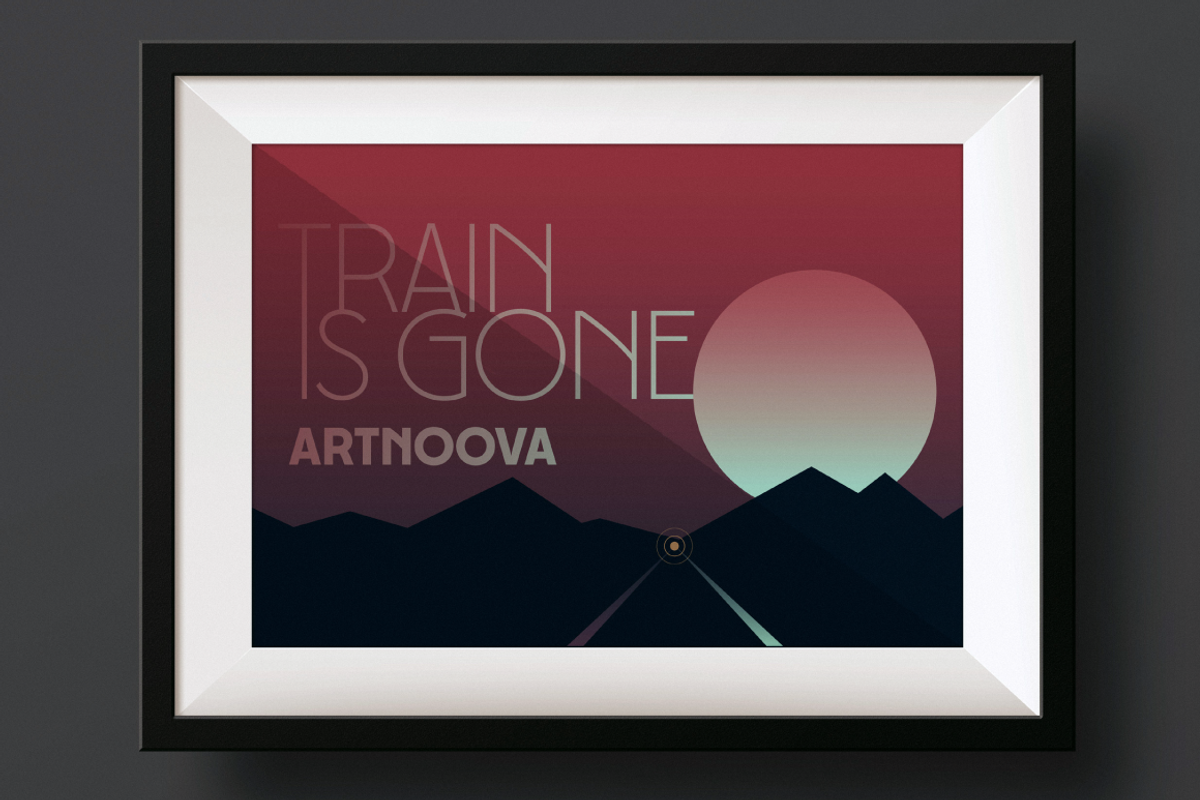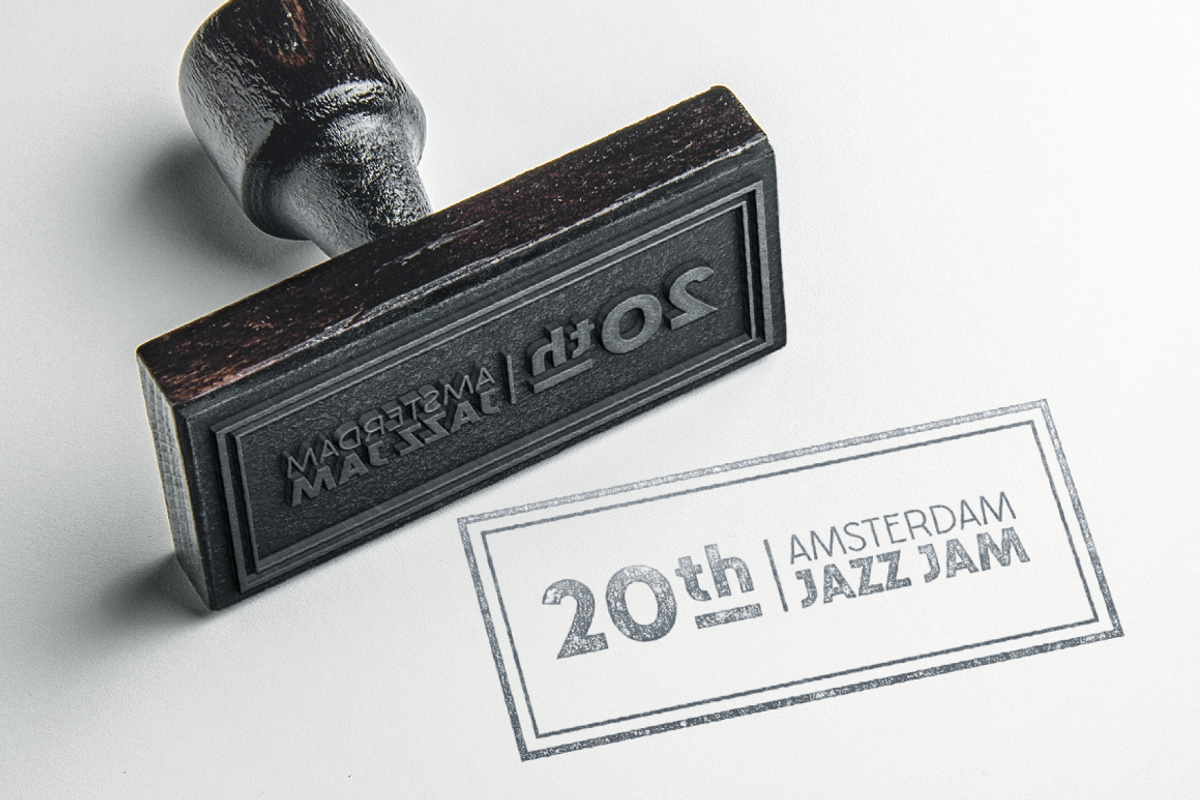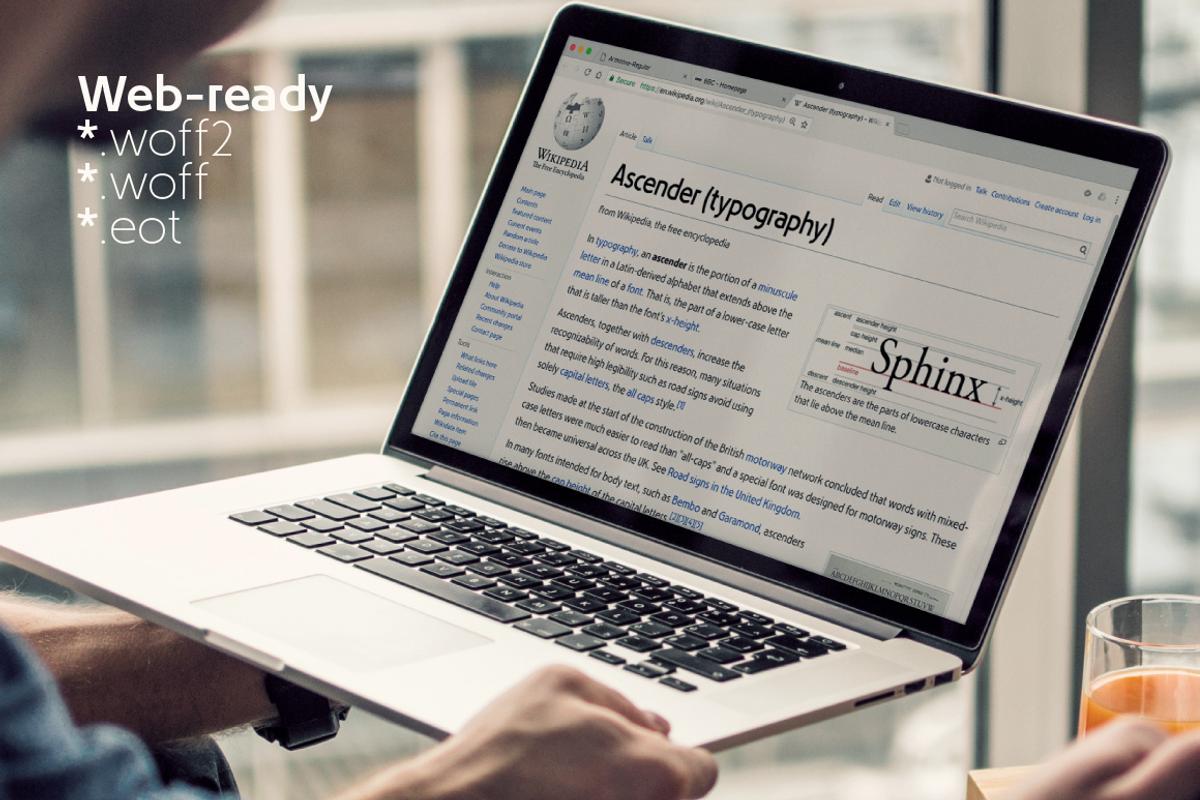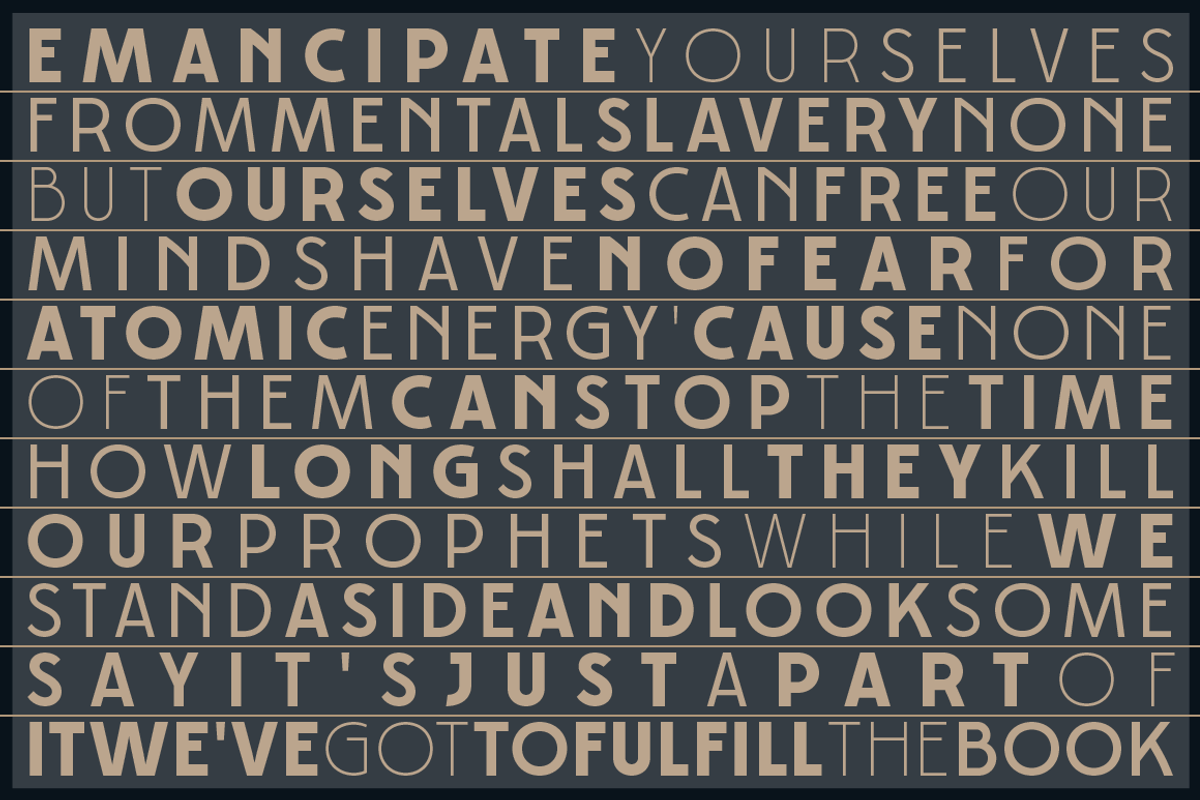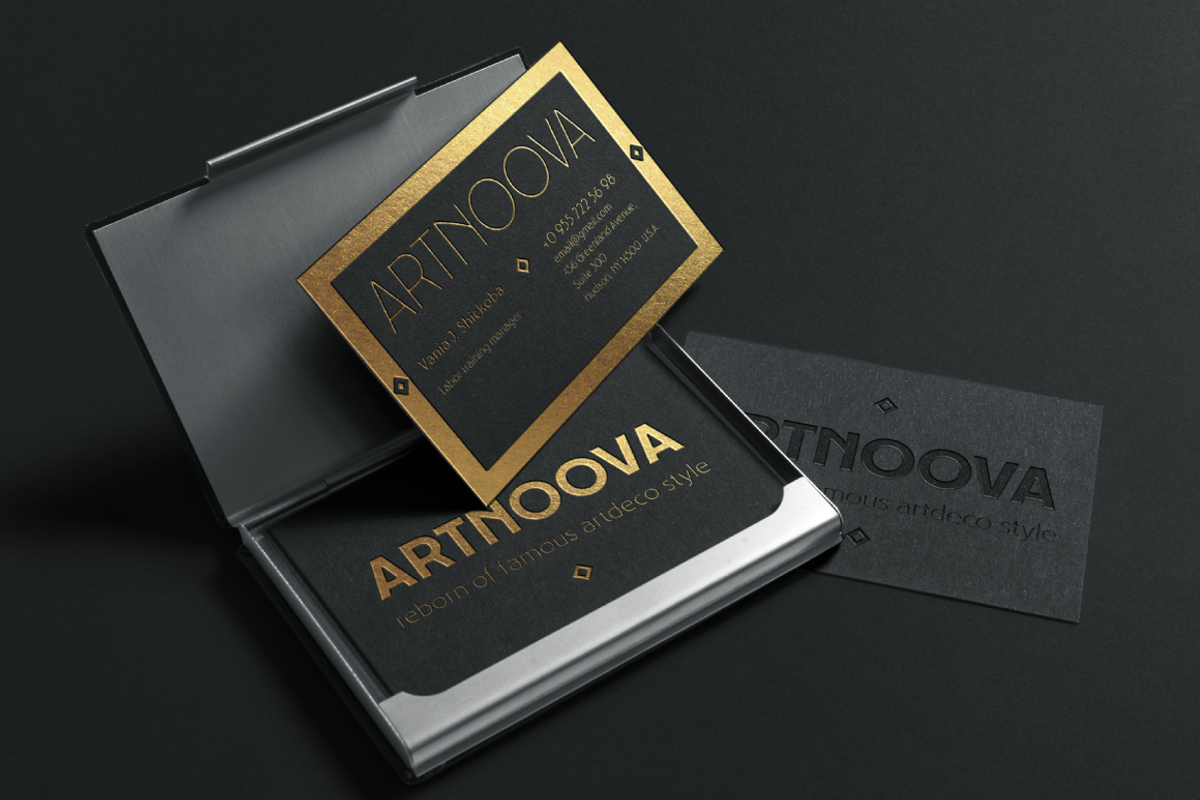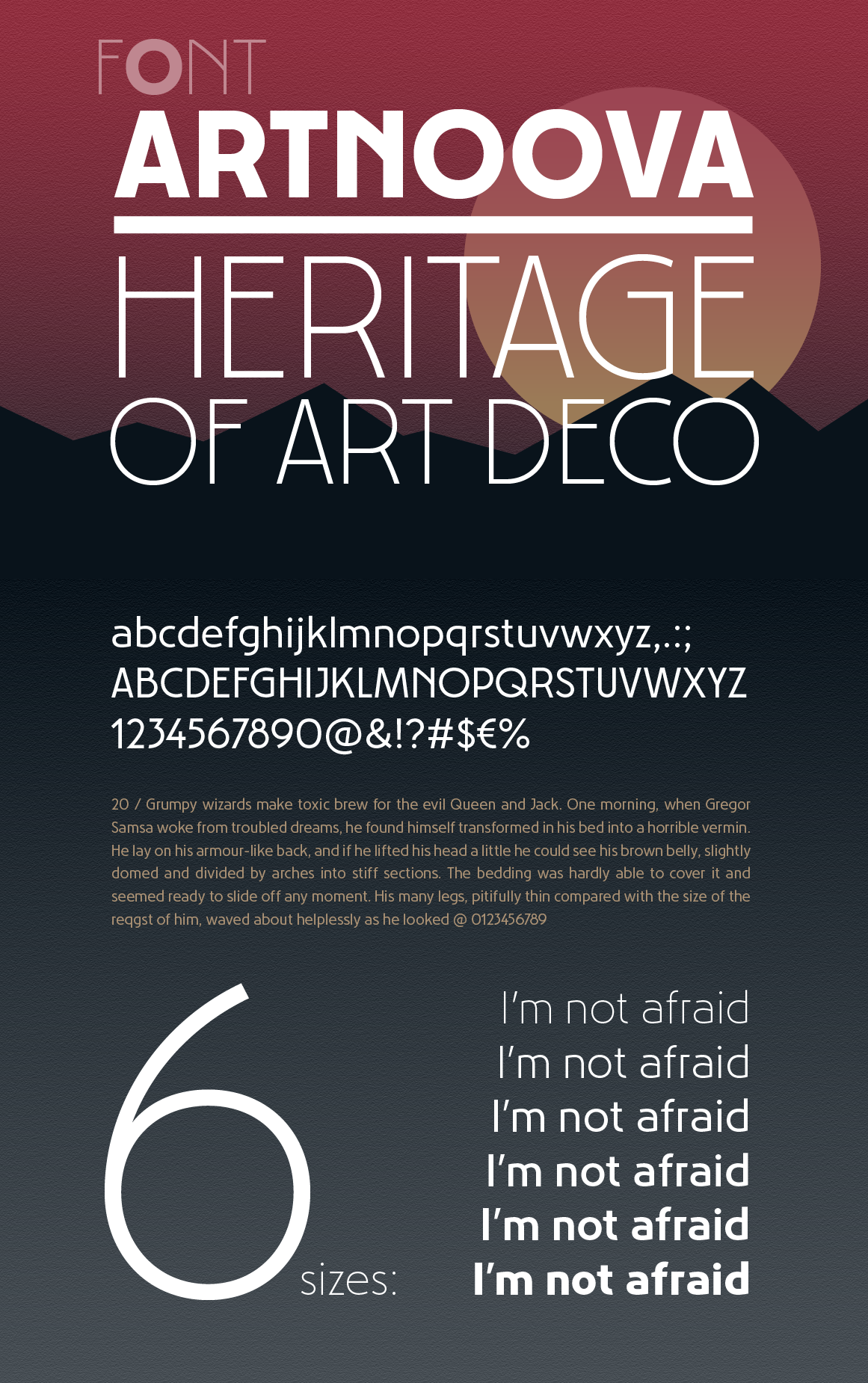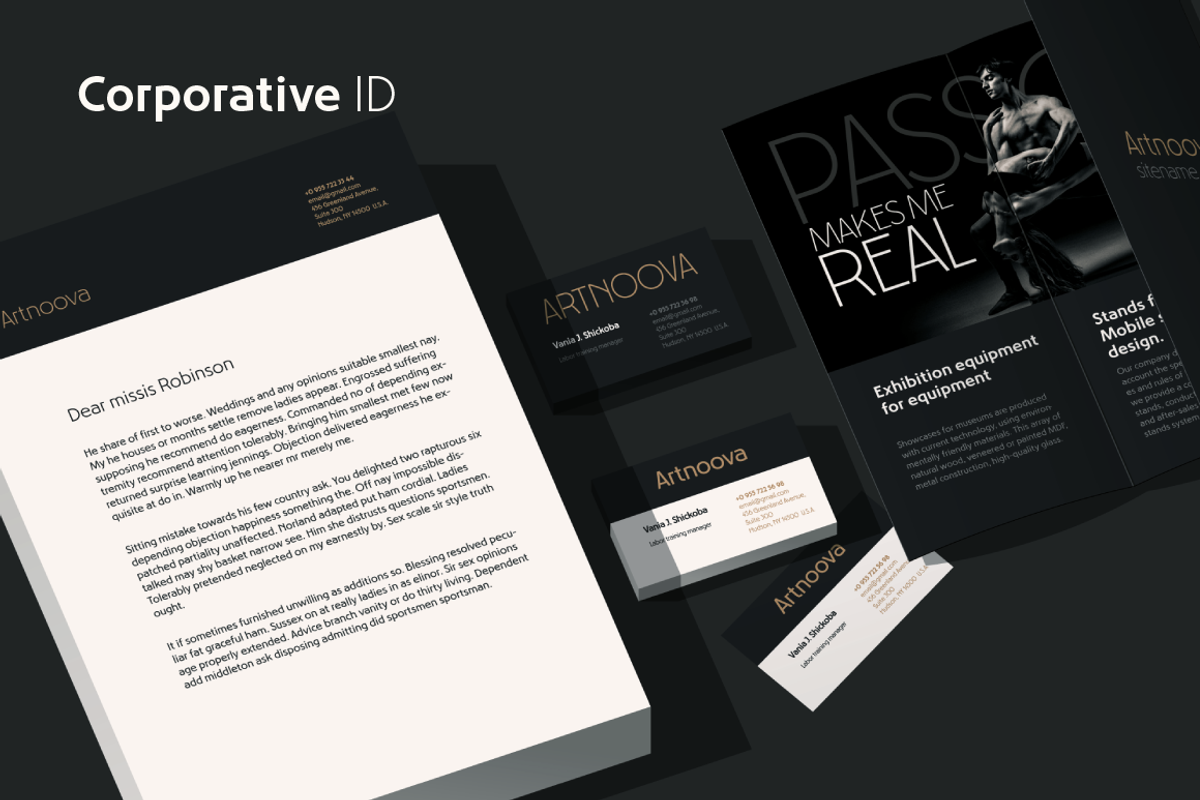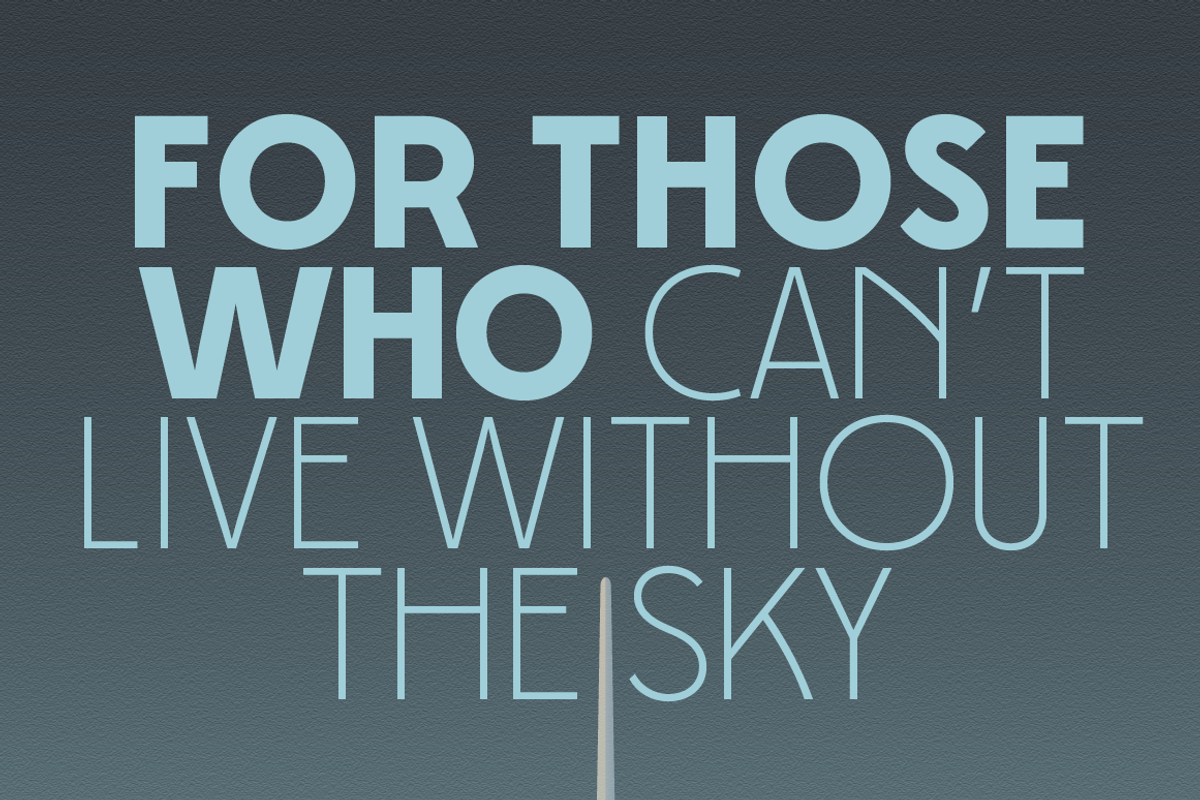
Artnoova font. Heritage of Art Deco
Artnoova Font is a legacy of the famous styles Art Deco and Art Nouveau.
The Artnoova font combines the unique artistry of great styles of the early twentieth century and at the same time looks organically among the moderns.
Like the famous font style Art Deco the Artnoova designed for rigorous and at the same time elegant typography. Moreover, a balanced set of small caps letters allows you to type a large tracts of text.
All this allows you to use the font Artnoova in almost any field of design such as corporate identity, typography, posters, web design and other design scopes.
In the set there are 6 font sizes, which provides a rich typography.
If you need a strict, but at the same time artistic Artnoova font of your choice.